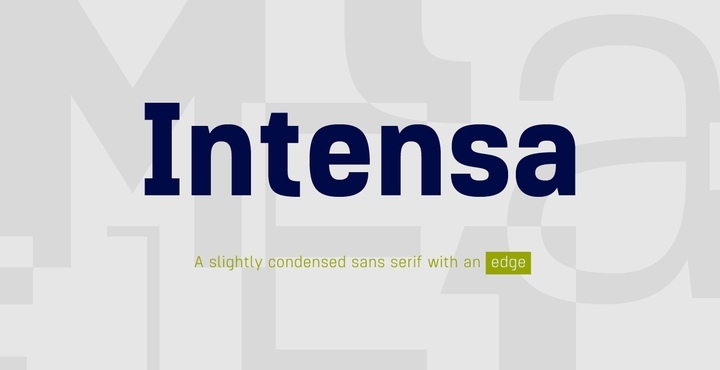
Intensa Font
Intensa Font is perfect for high-intensity fitness brands, extreme sports companies, powerful energy drink campaigns, intense training programs, adrenaline-fueled entertainment venues, and dynamic performance organizations. Its commanding character makes it ideal for competitive athletics programs, intense workout studios, extreme adventure tours, high-energy music festivals, powerful motivational coaching, and any project requiring maximum intensity with explosive energy and uncompromising power appeal.
This font is exciting because it embodies raw intensity and explosive energy while delivering exceptional functionality for brands that need to communicate power, determination, and the kind of unstoppable force that drives peak performance and extreme achievement. The powerfully crafted letterforms pulse with kinetic energy and unstoppable momentum, creating typography that literally radiates intensity and motivates audiences to push beyond their limits with uncompromising determination.
The Intensa Font family typically includes Light, Regular, Medium, and Bold weights with intense alternates, power-driven ligatures, and explosive elements that enhance its dynamic personality. This comprehensive collection enables performance professionals to create authoritative brand systems that maintain intensity credibility while offering flexibility for various high-energy applications requiring both powerful impact and contemporary extreme sports positioning.
Whether you're developing identity systems for extreme sports companies, creating materials for high-intensity training programs, or designing promotional content for adrenaline-fueled entertainment, Intensa Font Free Download delivers the explosive energy and intense appeal that connects with audiences seeking maximum performance and extreme experiences. Its powerful presence ensures unforgettable brand recognition across digital platforms and print materials, making it perfect for websites, mobile applications, and intensity campaigns that celebrate extreme performance, unstoppable determination, and the transformative power of pushing limits with contemporary intensity standards and authentic explosive energy.